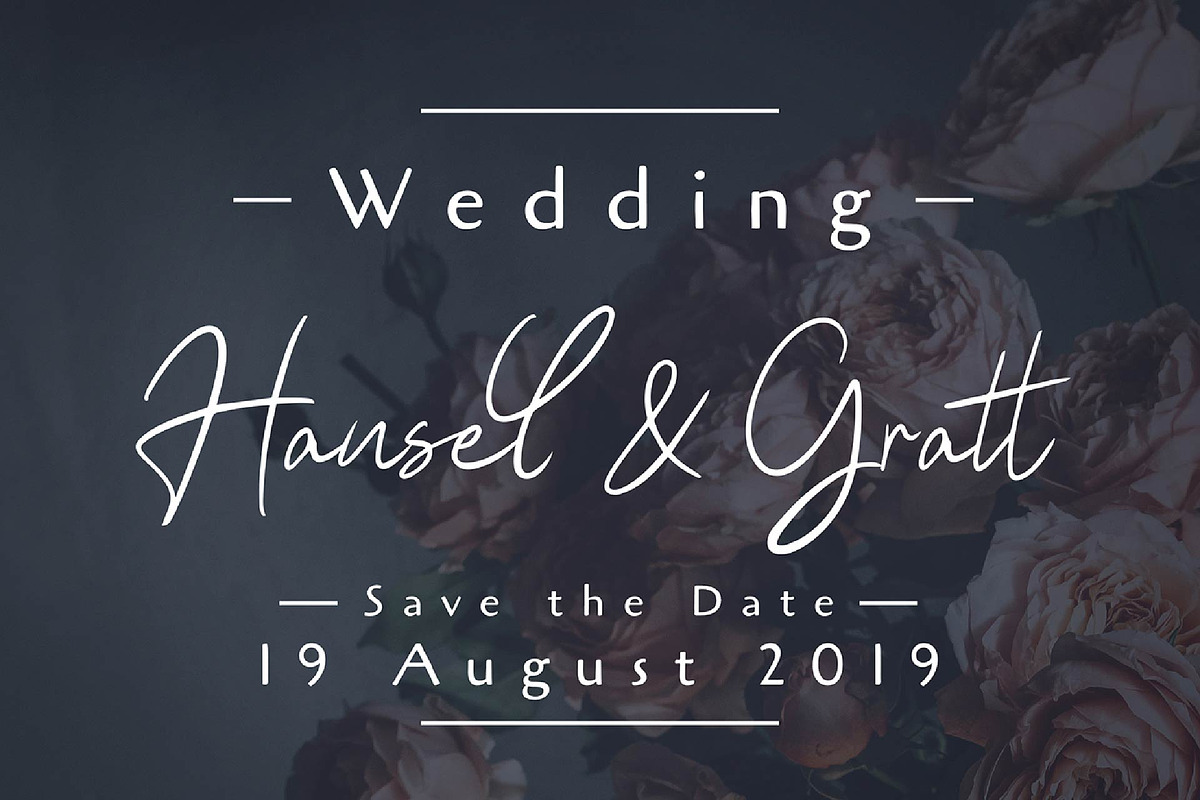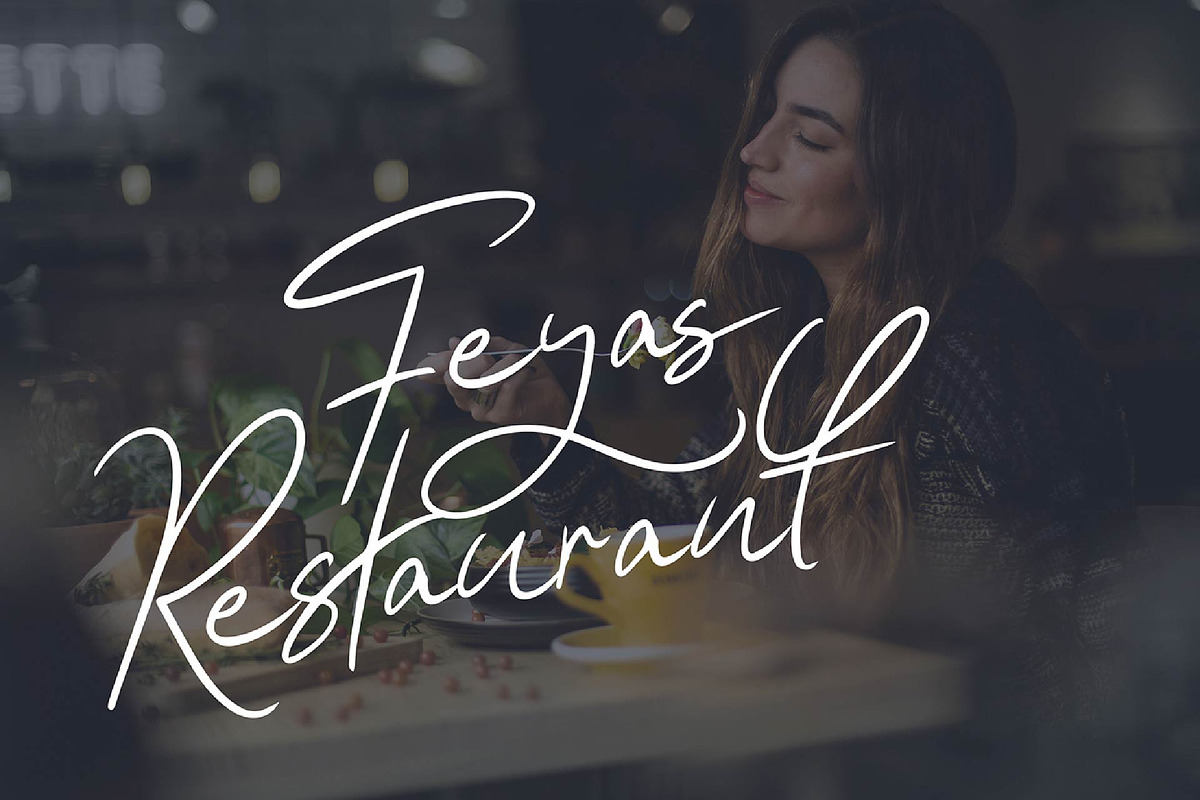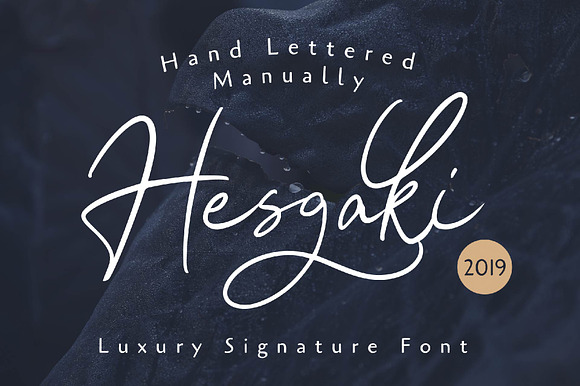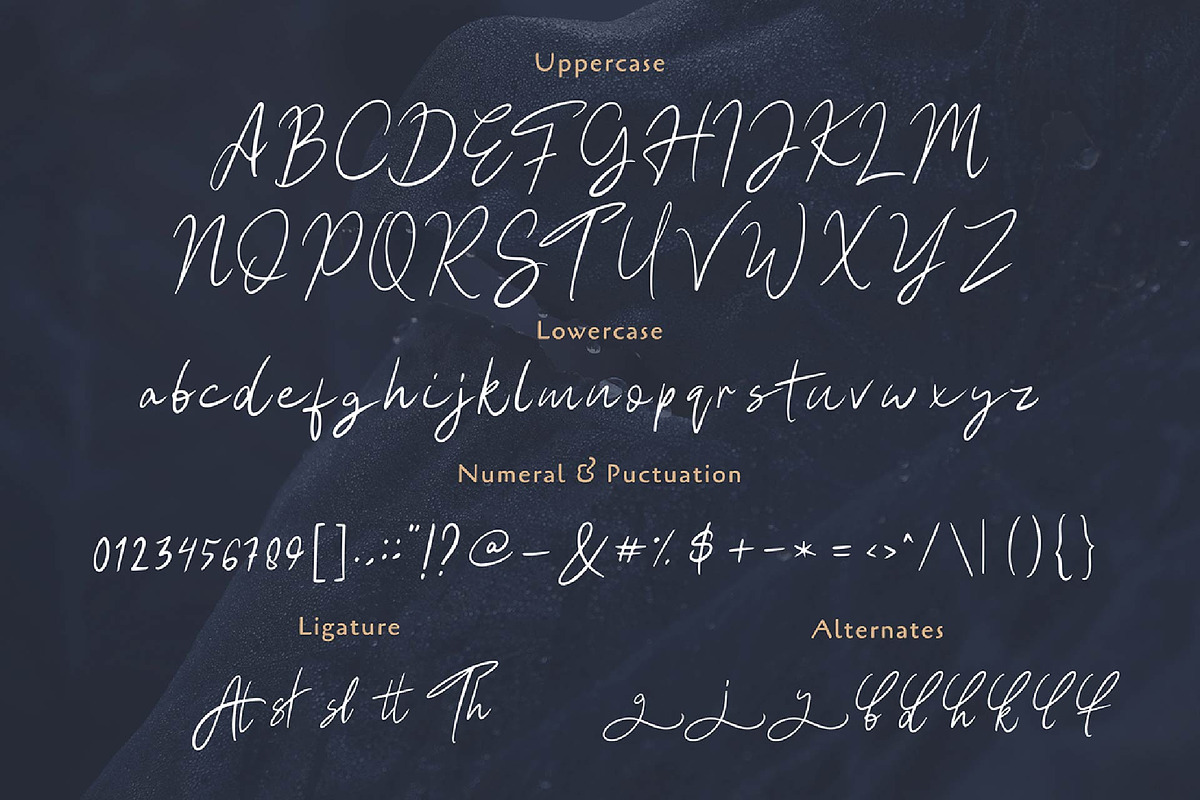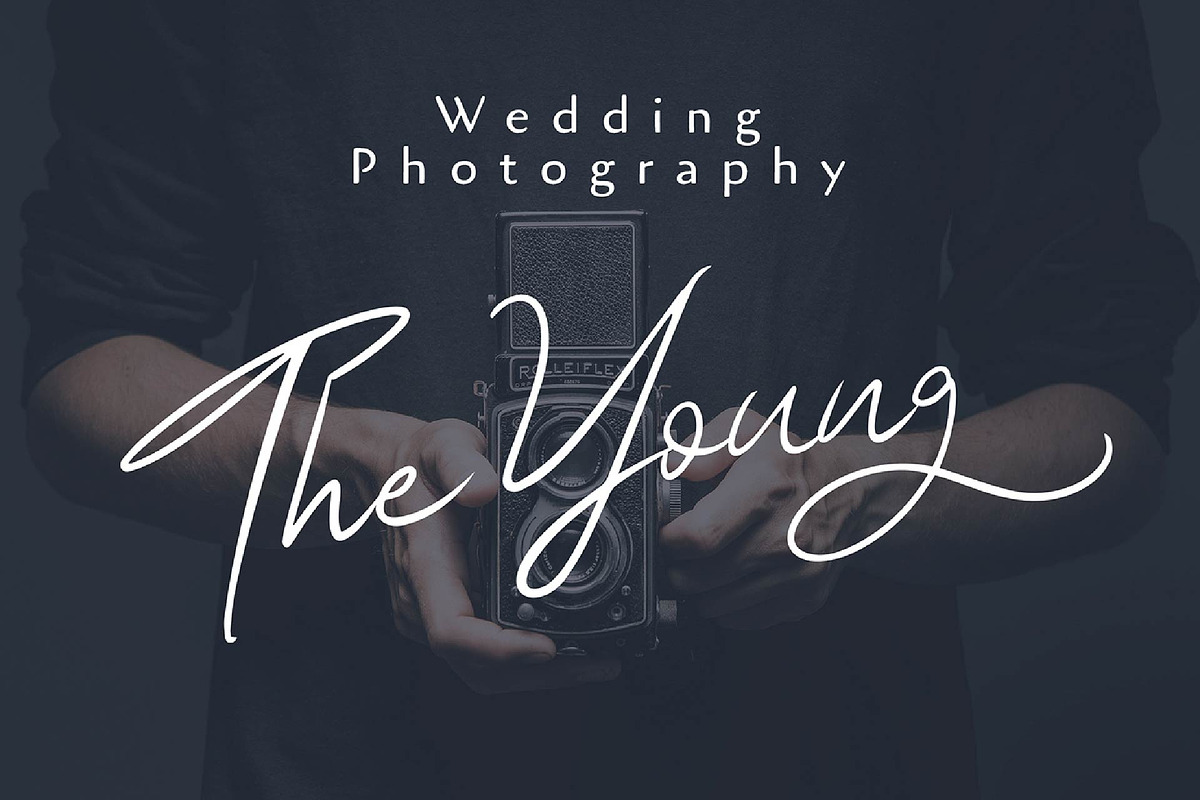
Hesgaki - Luxury Signature Font
So beautiful on invitation like greeting cards, branding materials, business cards, quotes, posters, and more!
Hesgaki - Luxury Signature Font by KAZ by IanMikraz Studio fits naturally into Branding, posters, packaging, typography.